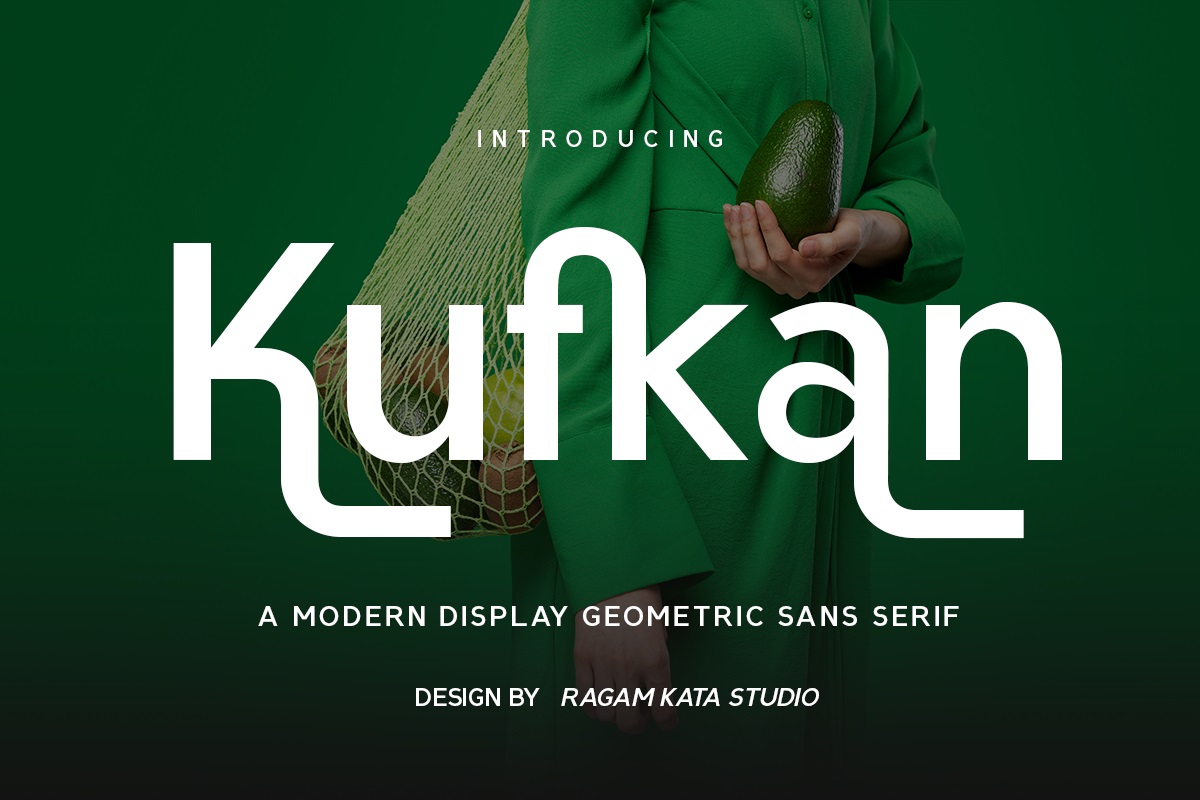
Kufkan Font
Kufkan is a contemporary geometric sans serif typeface designed with the ability to deliver brands and illustrations with pop. Attractive and clean, Kufkan is non-pretentious in its elegance. Kufkan is an eye-catching choice whether you want to design packaging, editorial layout, digital interface, or any logo completely.
Kufkan is right for brands that are environmentally conscious, fashion savvy, technological firms, and any company in the creative industry (design, marketing, etc.) who wants an honest, assertive voice.
Kufkan Sans Serif Font